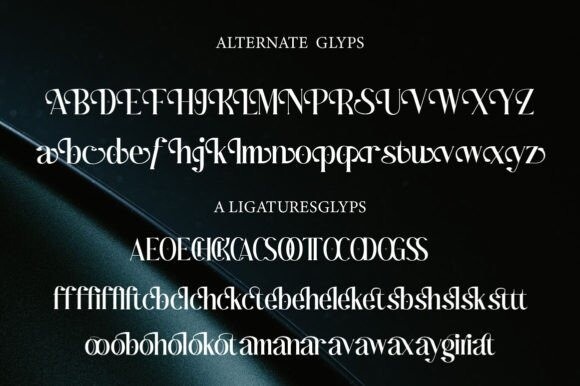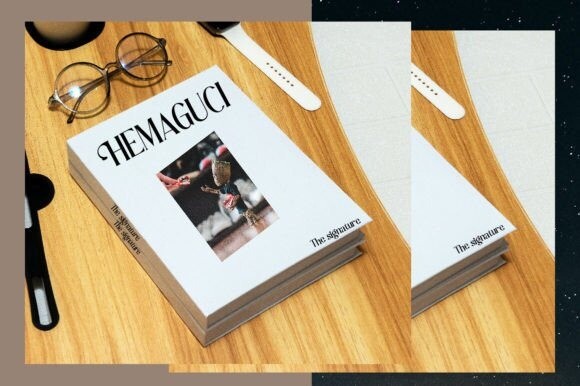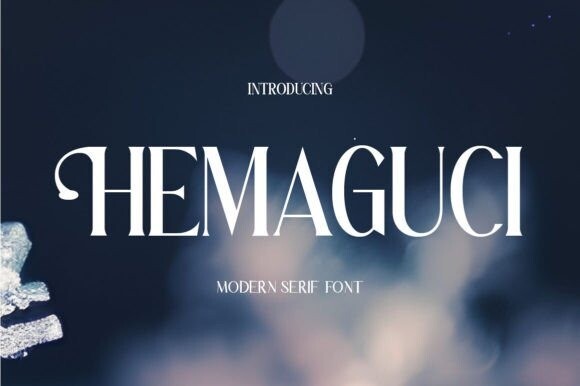
Hemaguci Font
Hemaguci Font, this is a modern and simple serif font, best used as a display for headings, logos, branding, magazines, cover, product packaging, and invitations and more.